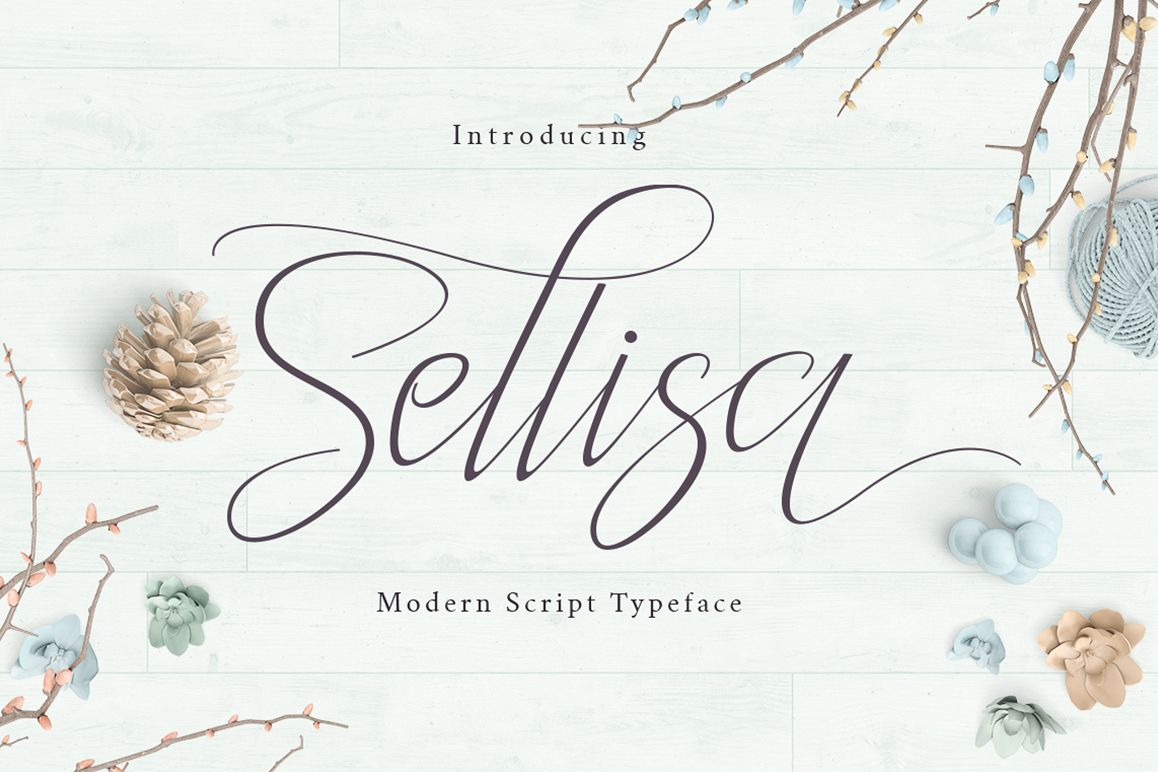
Sellisa Script
Sellisa is a stylish calligraphy font that features a varying baseline, smooth line, classic and elegant touch. Can be used for various purposes.such as headings, signature, logos, wedding invitation, t-shirt, letterhead, signage, label, news, posters, badges etc.
• Basic Latin A-Z and a-z
• Symbols
• Stylistic Set